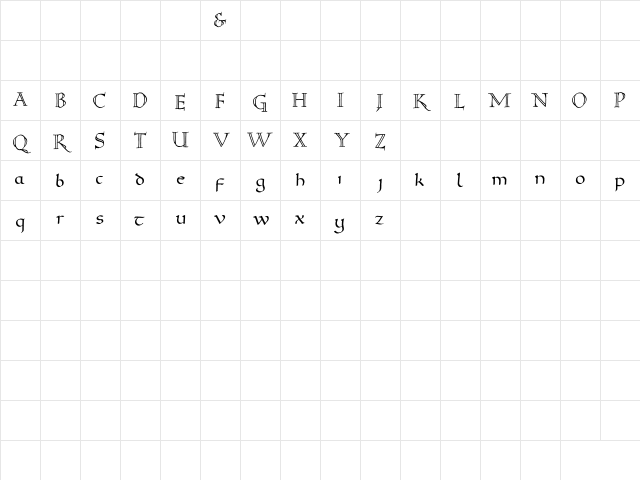
Versal Regular
Foundry: MouserFonts
Designer: MouserFonts - Jerry Landers
Design Context for Versal
Versal is a composed and adaptable typeface that performs quietly and consistently across a wide range of design contexts.